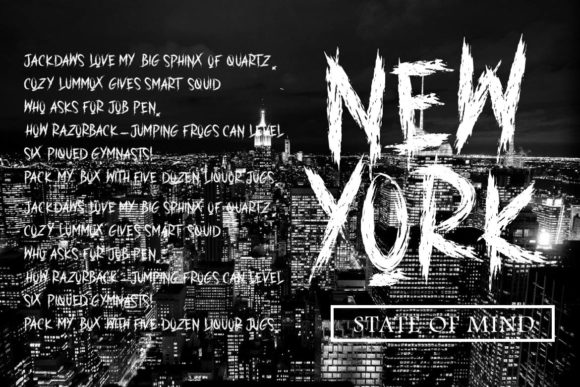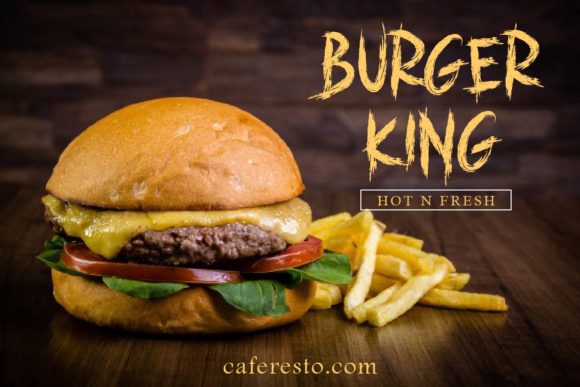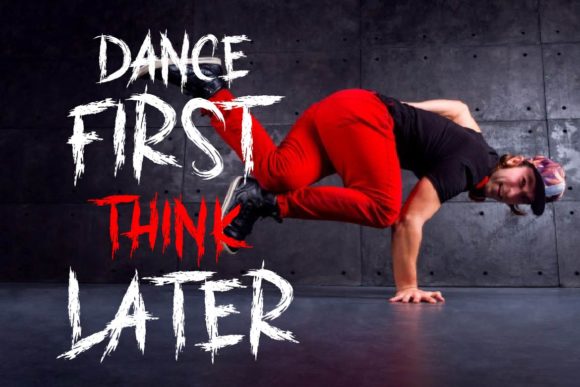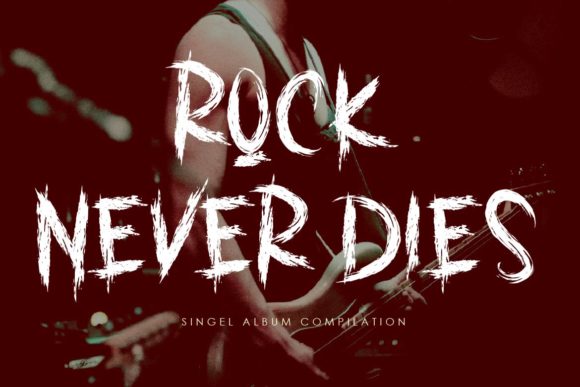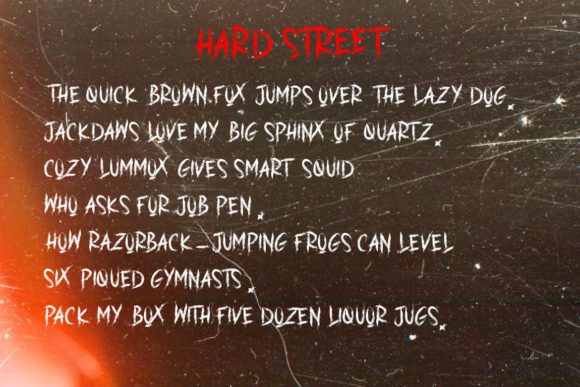
Introducing Hard Street Font: The Bold and Quirky Display Font You Need
Are you tired of using the same old fonts for your creative projects? Do you want to add a touch of personality and uniqueness to your designs? Look no further than Hard Street Font, a bold and quirky display font that’s sure to make your ideas stand out.
What is Hard Street Font?
Hard Street Font is a display font that’s designed to make a statement. With its bold and chunky lettering, this font is perfect for adding a touch of edginess to your designs. Whether you’re working on a logo, a poster, or a social media graphic, Hard Street Font is sure to grab attention and leave a lasting impression.
Key Features of Hard Street Font
- Bold and chunky lettering: Hard Street Font features bold and chunky lettering that’s perfect for making a statement.
- Quirky and unique: This font has a quirky and unique personality that’s sure to add a touch of personality to your designs.
- Highly legible: Despite its bold and chunky design, Hard Street Font is highly legible, even at smaller sizes.
- Versatile: This font can be used for a wide range of design projects, from logos and posters to social media graphics and more.
Why Use Hard Street Font?
So why should you use Hard Street Font for your design projects? Here are just a few reasons:
- Add a touch of personality: Hard Street Font is a great way to add a touch of personality and uniqueness to your designs.
- Stand out from the crowd: With its bold and quirky design, Hard Street Font is sure to make your designs stand out from the crowd.
Design Ideas Using Hard Street Font
Here are just a few design ideas to get you started with Hard Street Font:
- Logos: Use Hard Street Font to create a bold and eye-catching logo for your business or brand.
- Posters: Create a statement poster using Hard Street Font to grab attention and convey your message.
- Social media graphics: Use Hard Street Font to create eye-catching social media graphics that will stand out in crowded feeds.
- Signs: Use Hard Street Font to create bold and eye-catching signs for your business or event.
Hard Street Font is a bold and quirky display font that’s perfect for designers and crafters who want to add a touch of personality to their designs. With its bold and chunky lettering, this font is sure to make your ideas stand out. Whether you’re working on a logo, poster, or social media graphic, Hard Street Font is a great choice. So why not give it a try and see how it can enhance your designs?